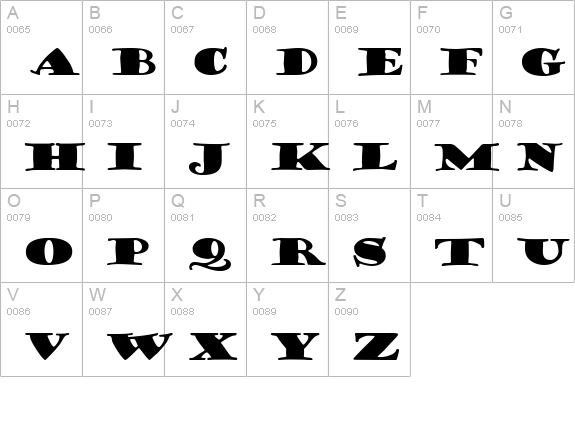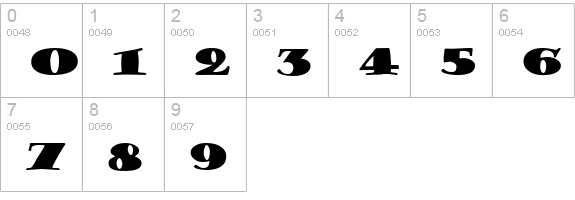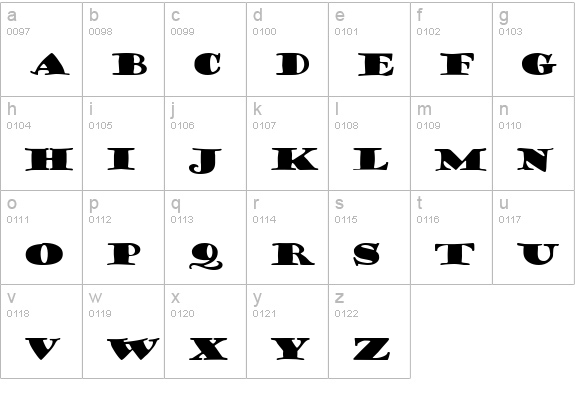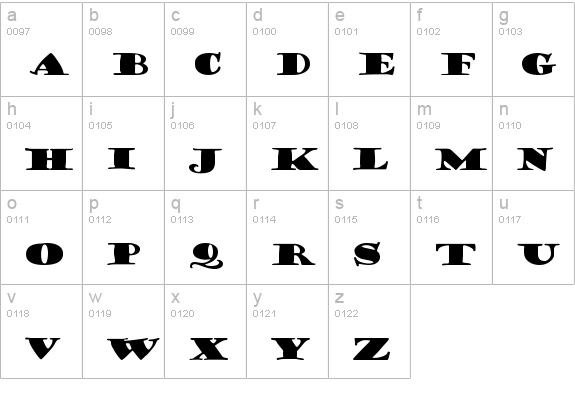
CoffeeSackExtended Normal Font Details
CoffeeSackExtended Normal is the standard, neutral variant in the CoffeeSackExtended typeface family \xE2\x80\x94 well suited to general body text, paragraphs, and standard typographic work.
Introducing CoffeeSackExtended Normal font, a versatile and stylish typeface perfect for a wide range of design projects. This font features a unique blend of modern and vintage aesthetics, making it ideal for logos, branding, posters, and more. With its extended character set, CoffeeSackExtended Normal offers great flexibility and creativity in your designs. Best of all, CoffeeSackExtended Normal font is available for free download at FontsMarket.com. Simply visit the website to access this amazing font and elevate your design projects with its charm and sophistication. Don't miss out on this opportunity to enhance your creative work with CoffeeSackExtended Normal font today!